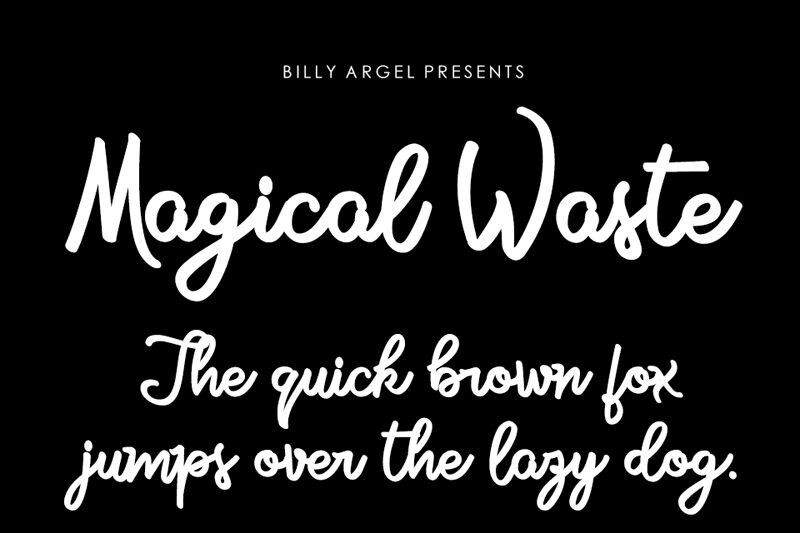
Magical Waste is a captivating handwritten font designed by Billy Argel. Its bold, expressive strokes and playful ligatures convey a sense of whimsy and creativity. The organic, flowing lines give the font a dynamic, almost enchanted feel, making it an excellent choice for a wide range of design applications, from logos and branding to event invitations and editorial layouts. This font's unique character and versatility make it a powerful tool for designers seeking to add a touch of mystique and flair to their projects.
This font's distinctive style lends itself well to projects that aim to evoke a sense of magic, wonder, or the unconventional. Its fluid, script-like appearance can bring a touch of elegance and sophistication to high-end brands, while its playful nature makes it ideal for children's products, stationery, and other playful design contexts.